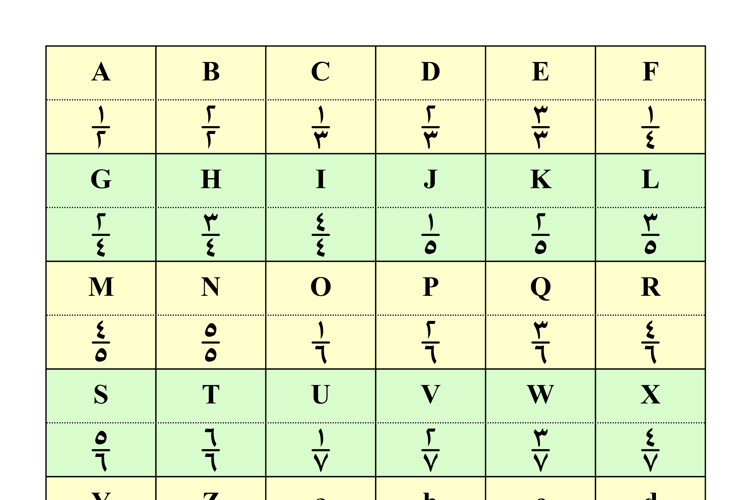
Abdallah Fractions Font
This font is an Arabic fractions font designed to be used in Arabic Maths books regarding the basic grades. it has no alternative on the internet at the time being uploaded.